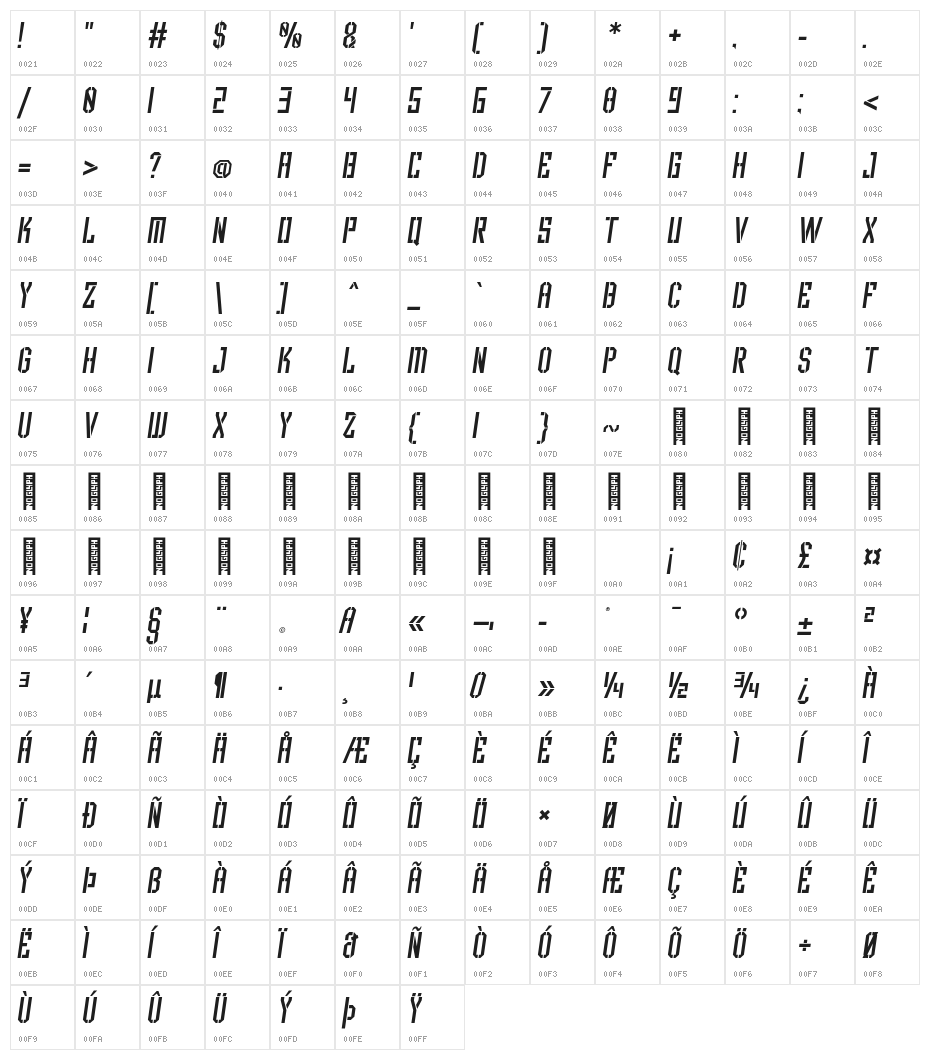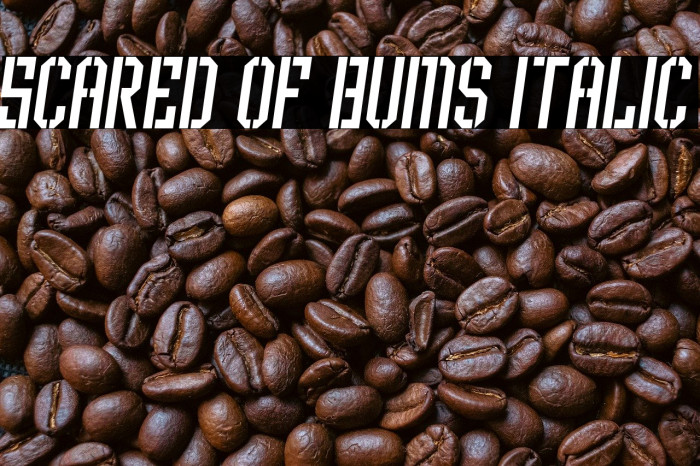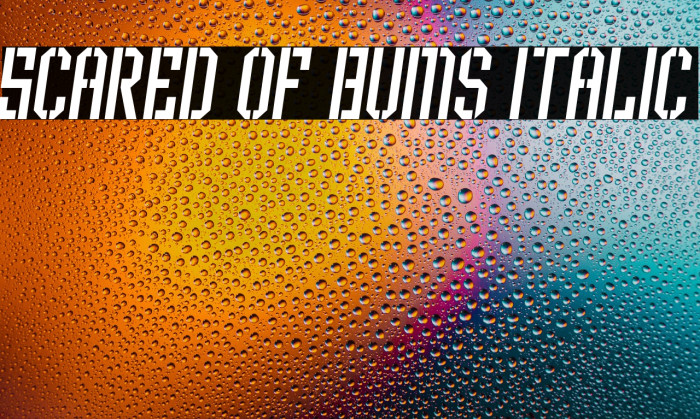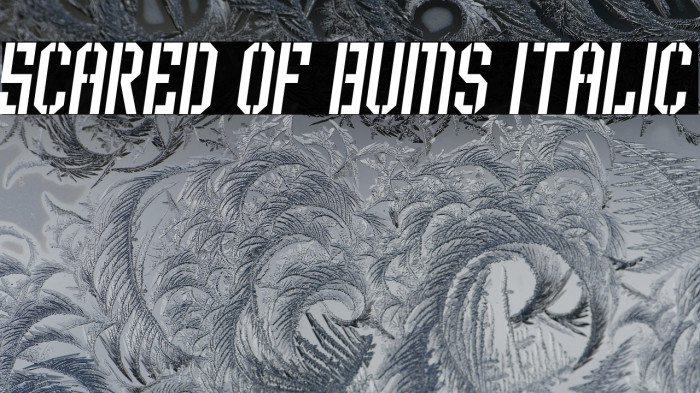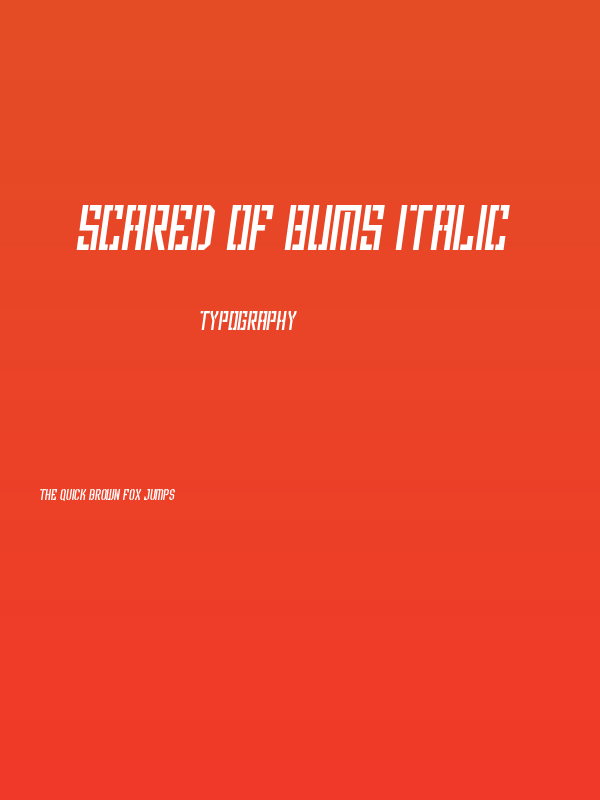
Scared of Bums Italic Font
Scared of Bums Italic Description
This font features a bold, angular design with a distinct italic slant, giving it a dynamic and energetic appearance. The characters are constructed with sharp, geometric edges, creating a sense of movement and urgency. The uppercase and lowercase letters maintain a consistent style, with the uppercase letters exhibiting a slightly taller and more pronounced form. The numerals and special characters follow the same angular and slanted design, ensuring uniformity across all glyphs. This font's unique style makes it stand out, ideal for projects that require a modern and edgy look.
| Proposed Projects | Ideal for posters, album covers, video game graphics, and branding that requires a modern, edgy look. |